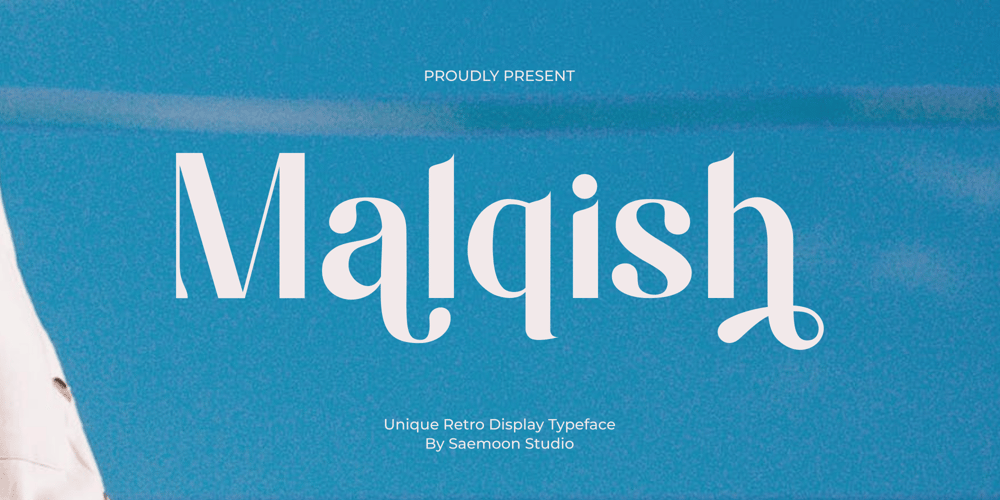
Malqish Font Family was designed by Sapto Susilo and published by Saemoon Creative. Malqish contains 1 styles and family package options. Malqish is a uniquely retro font with numerous alternative flying machines, adding a distinctive touch to your retro-themed designs and elevating your creative work to perfection. Malqish is particularly well-suited for retro designs that exude uniqueness. It can enhance various design projects, including brand identity, logo design, product branding, social media posts, covers, and quotes. Acquire the Malqish font to make your designs shine even brighter.